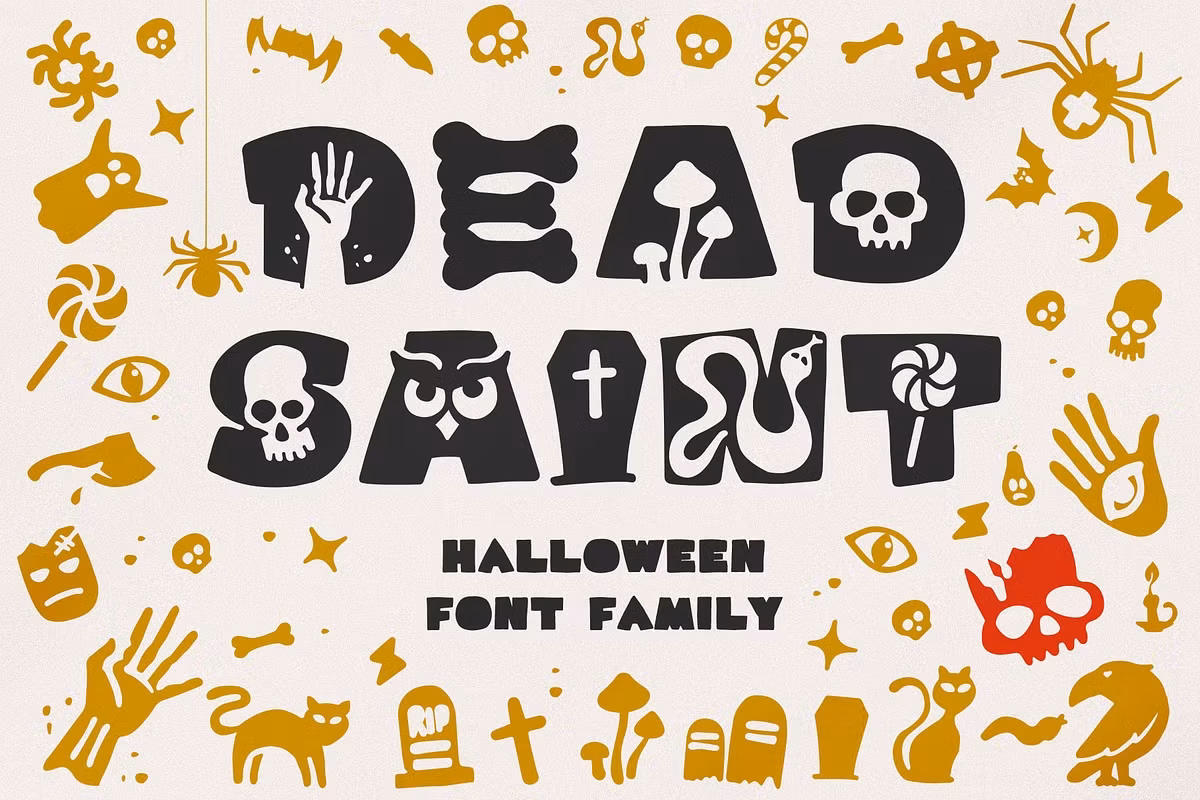
The Dead Saint Halloween Fonts & Icons Free Download is a spooky and thrilling typeface bundle designed to add a chilling touch to your Halloween projects. Featuring a collection of eerie fonts and creepy icons, this pack is perfect for creating haunting logos, invitations, posters, social media graphics, and more. Whether you're designing for a haunted house, Halloween party, or horror-themed branding, Dead Saint brings a dark, dramatic vibe to your designs.
Dead Saint Halloween Fonts & Icons Free Download is ideal for designers looking to create captivating, spooky visuals for the Halloween season. Perfect for horror events, seasonal promotions, or dark-themed projects, this bundle will elevate your designs with its eerie and eye-catching style. Download it today and bring a ghostly touch to your creative projects!